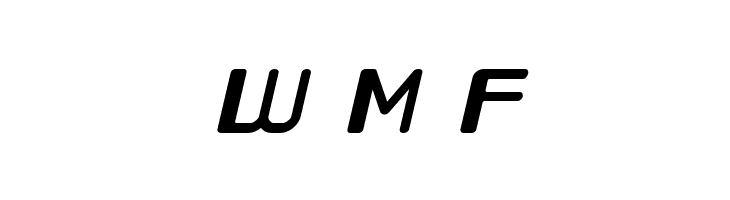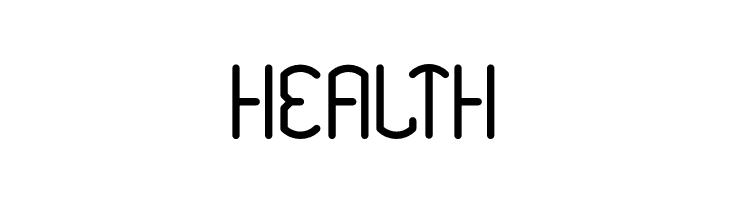
A modern, rounded font with bold, clean lines and balanced spacing.
A cursive font with decorative arrows, combining elegance with a playful twist.
A dotted line instructional font for handwriting practice with stroke guides.
A dotted cursive font designed for handwriting practice.
A graceful cursive font with smooth, flowing lines and elegant style.
An educational font with dotted lines and arrows for teaching handwriting.
A decorative font with dotted outlines and playful, whimsical characters.
A whimsical and playful font with bold, curved letterforms and decorative elements.
A mosaic-inspired decorative font with a textured, artistic appearance.
An artistic, decorative font with intricate loops and flourishes.
An elegant, decorative script font with intricate swashes and high contrast.
An expressive, brush-like font with dynamic strokes and artistic flair.
A playful, hand-drawn font with a whimsical and artistic style.
A dynamic, slanted script font with elegant curves and fluid strokes.
A left-slanted, calligraphic font with bold, flowing strokes and artistic flair.
A dynamic, slanted cursive font with expressive strokes and artistic flair.
An artistic and whimsical font with flowing, decorative strokes.
A rustic, handcrafted font with a woodcut print style.
A dynamic, brush-style script font with expressive, fluid strokes.
A dynamic brush script font with bold, slanted strokes and artistic flair.
A dynamic, slanted script font with expressive brush-like strokes.
A bold, expressive brush script font with dynamic strokes and artistic flair.
A bold, gothic Blackletter font with sharp, angular lines and intricate detailing.
A bold, rounded font with a modern and playful aesthetic.
A modern, ultra-lightweight font with a minimalist and geometric design.
An elegant script font with intricate swashes and a calligraphic style.
A bold, geometric font with circular, grid-based characters.
A modern, geometric font with unique cutouts and a futuristic style.
A playful, hand-drawn font with irregular, wavy strokes and a whimsical style.
A modern, playful sans-serif font with bold, rounded characters and a unique twist.
A bold, high-contrast font with tall, narrow letterforms and sharp serifs.